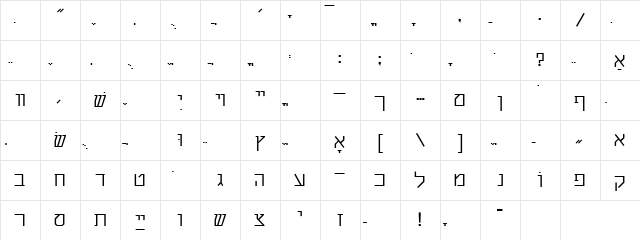
Shalom Stick Free Font
Shalom Stick
Style: Stick
Design Context for Shalom
Shalom is a composed and adaptable typeface that performs quietly and consistently across a wide range of design contexts.